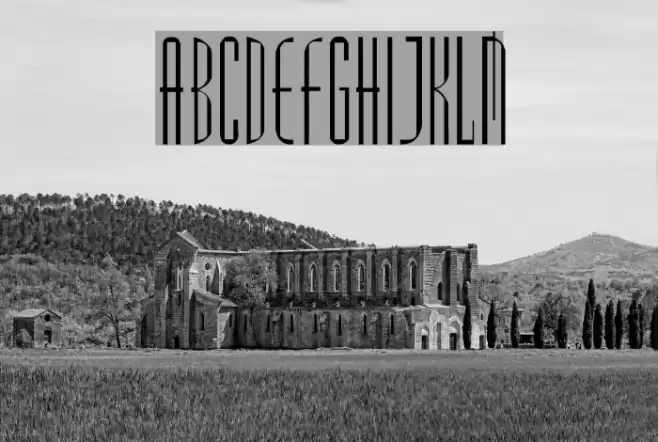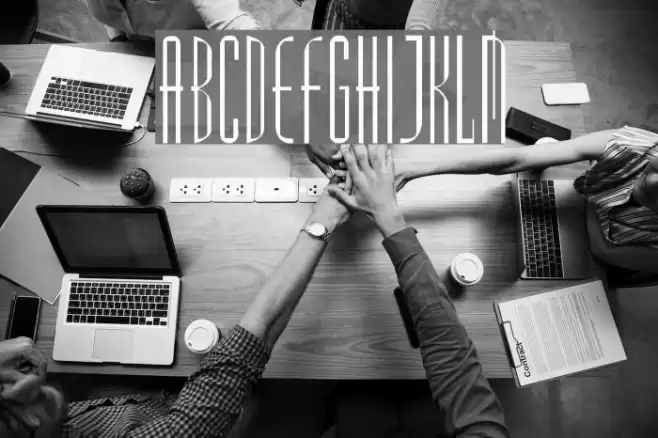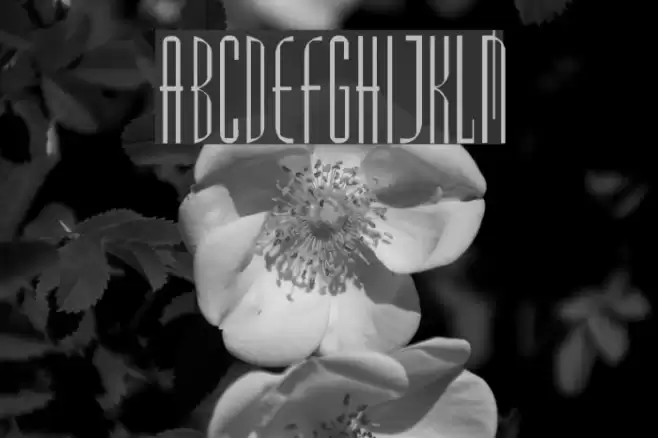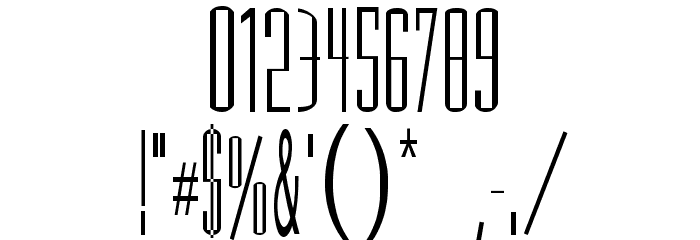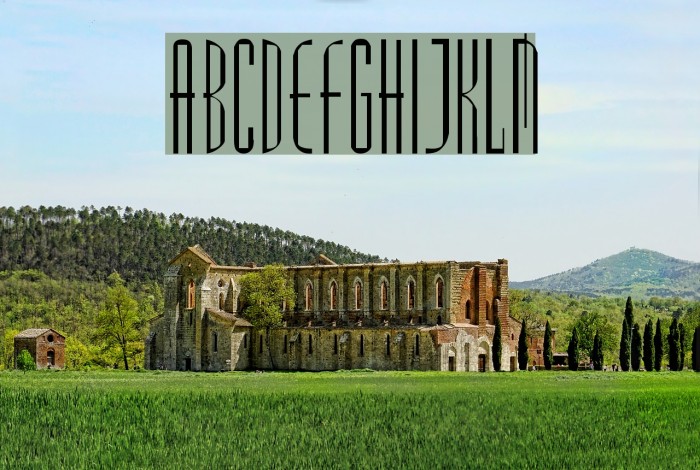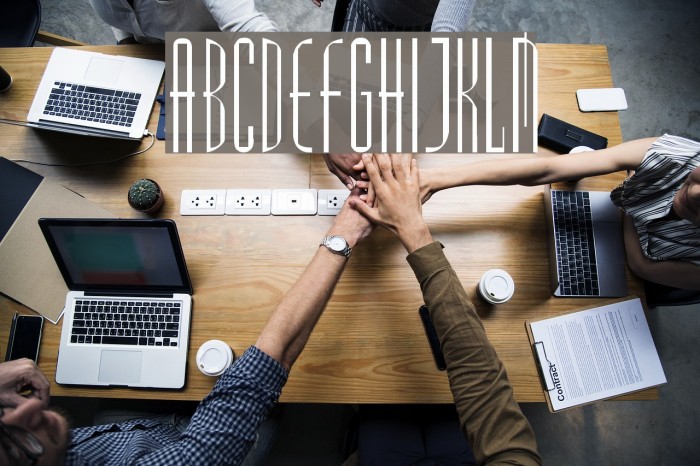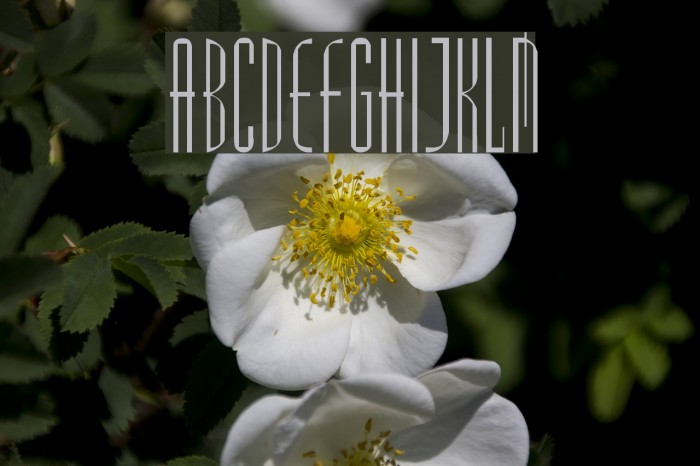
Madrid2Plain Font
Madrid2Plain Description
This font features a tall, narrow design with a distinctly modern and geometric aesthetic. The uppercase letters are elongated and have a uniform stroke width, giving them a sleek and sophisticated appearance. The lowercase letters maintain the same narrow proportions, creating a cohesive look across the alphabet. Numbers and special characters follow the same design principles, ensuring consistency throughout. The font's clean lines and minimalistic style make it suitable for contemporary design projects, where a sense of elegance and modernity is desired.
A tall, narrow, and modern geometric font with uniform stroke width from Kids fonts.
- Proposed Projects: Ideal for fashion branding, modern posters, editorial layouts, and luxury product packaging.
- Character Spacing: Tight